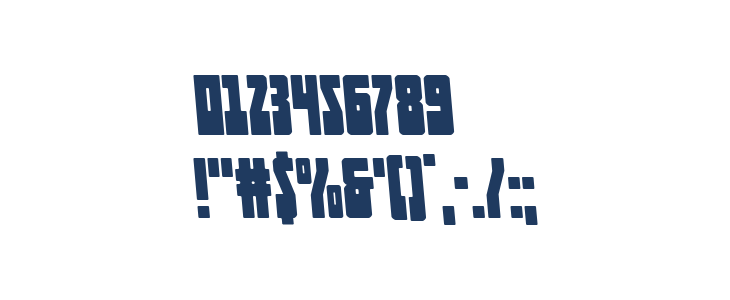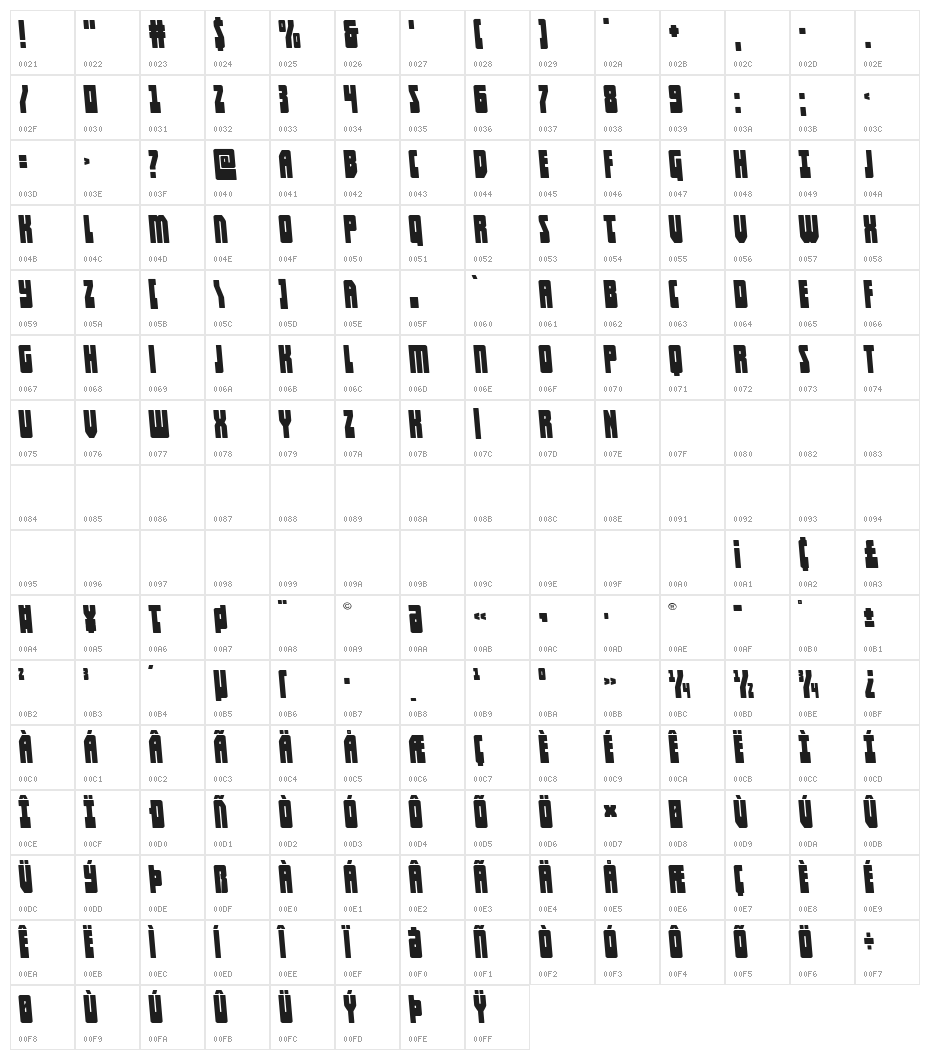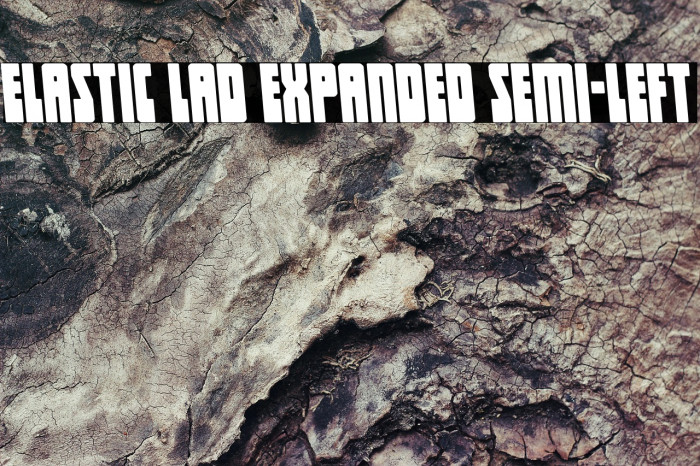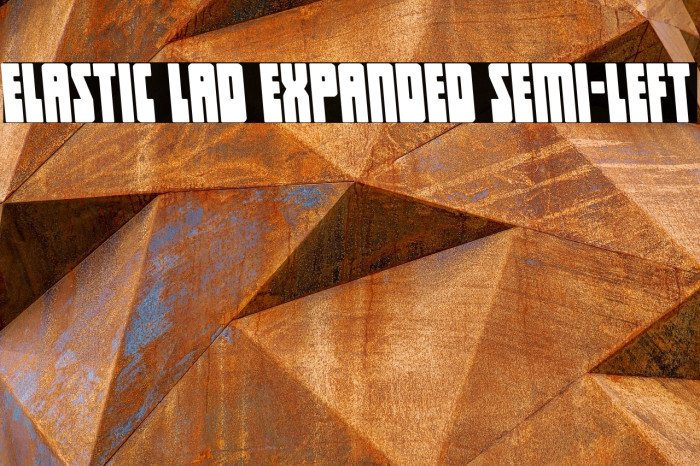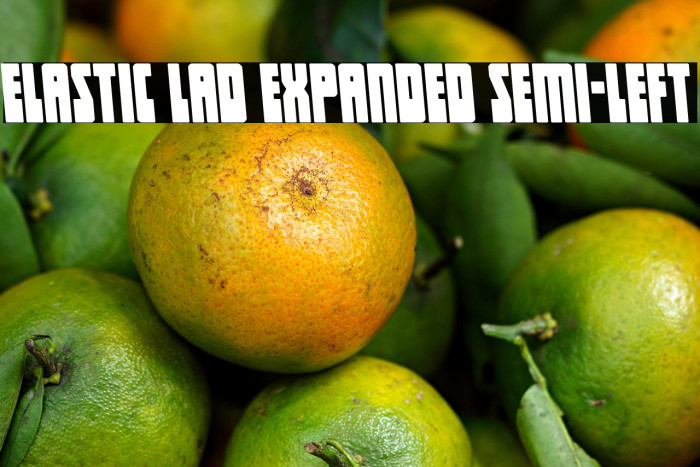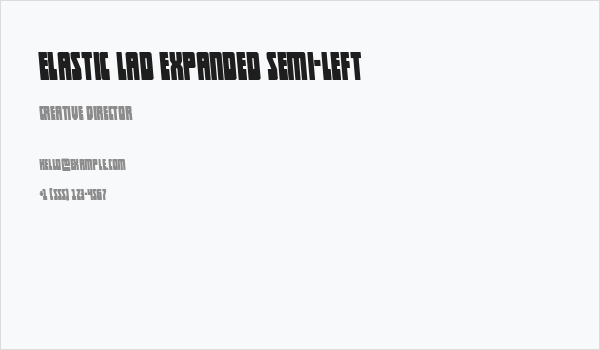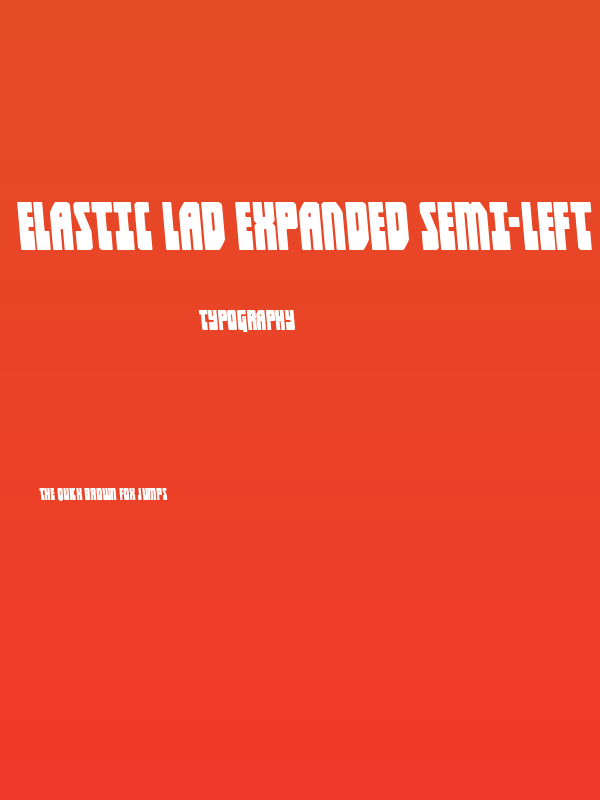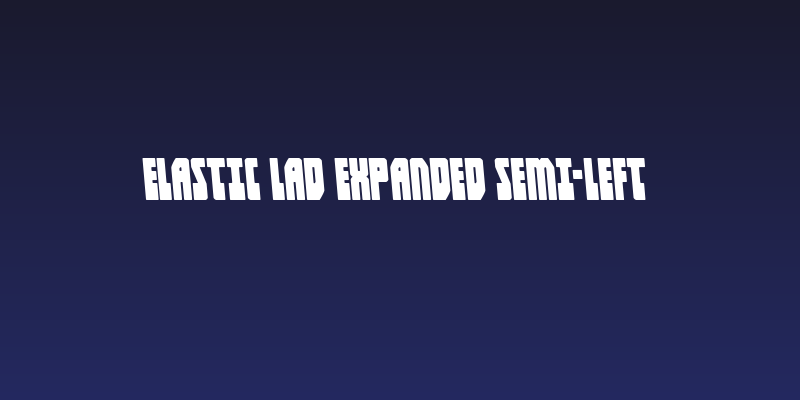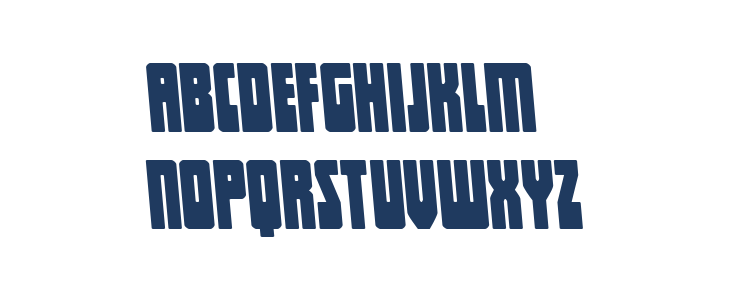
Elastic Lad Expanded Semi-Left Font
Elastic Lad Expanded Semi-Left Description
This font features a bold and expansive design with a distinctively wide and blocky appearance. The characters are uniformly thick, creating a strong visual impact. The uppercase letters are particularly prominent, with a geometric style that emphasizes their height and width. The numbers and special characters follow the same bold and expansive design, ensuring consistency across all elements. The overall look is modern and assertive, making it suitable for attention-grabbing applications.
| Proposed Projects | Ideal for posters, headlines, branding, and any project requiring a strong visual impact. |